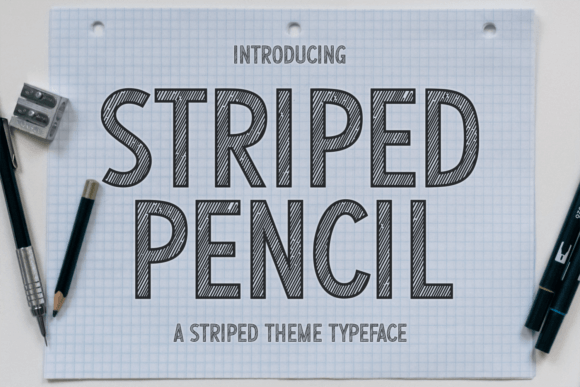
Unleash the Magic of Creation with Striped Pencil Font: The Epitome of Joyful Expression
Transport yourself to a realm of unbridled creativity where imagination reigns supreme. Let your thoughts dance across the page, adorned with the playful spirit of Striped Pencil Font. A decorative font that ignites a spark of joy with every character, Striped Pencil is your passport to a world of boundless expression.
Striped Pencil invites you to embrace your inner child, to recapture the unadulterated delight of childhood scribbles. This font is a symphony of diagonal stripes that breathe life into each letter, transforming ordinary words into extraordinary works of art. Ideal for cards that carry heartfelt messages, branding initiatives that seek to leave a lasting impression, paper crafts that showcase your meticulous artistry, and posters that command attention with their vibrant charisma.
With Striped Pencil Font, the mundane transforms into the magnificent. Its whimsical charm adds a touch of levity to any project, making it the perfect choice for whimsical cards, eye-catching posters, and branding initiatives that demand a playful touch. Let Striped Pencil be your creative companion, guiding you through a journey of self-expression and boundless imagination.
Embrace the whimsicality of Striped Pencil Font, a decorative masterpiece that elevates your creative pursuits to new heights. Its captivating stripes ignite a spark of joy in every beholder, making it the perfect choice for projects that demand an extra dose of charm and personality. Let Striped Pencil be your muse, leading you down a path of artistic exploration and unrestrained creativity.